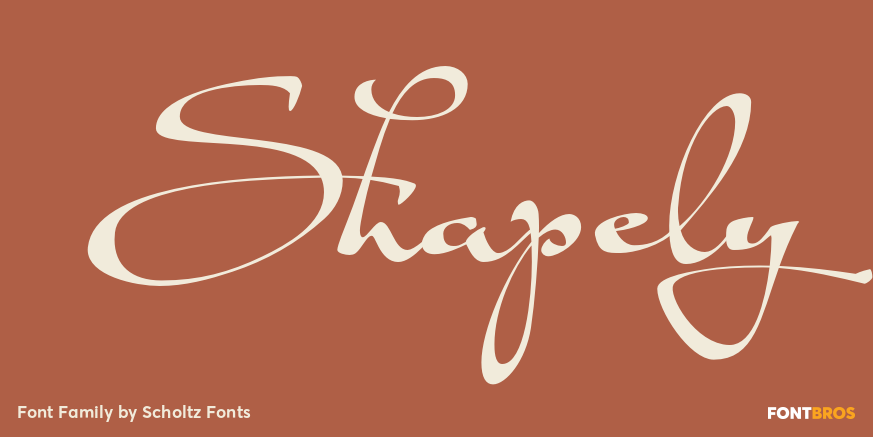
Shapely
About Shapely
Shapely is designed with elements of classical calligraphy expressed in a very modern idiom. It embodies the Scholtz signature – casual, extravagant, bold design with an underlying attention to detail and legibility. Numerous ligatures emphasize immediacy…